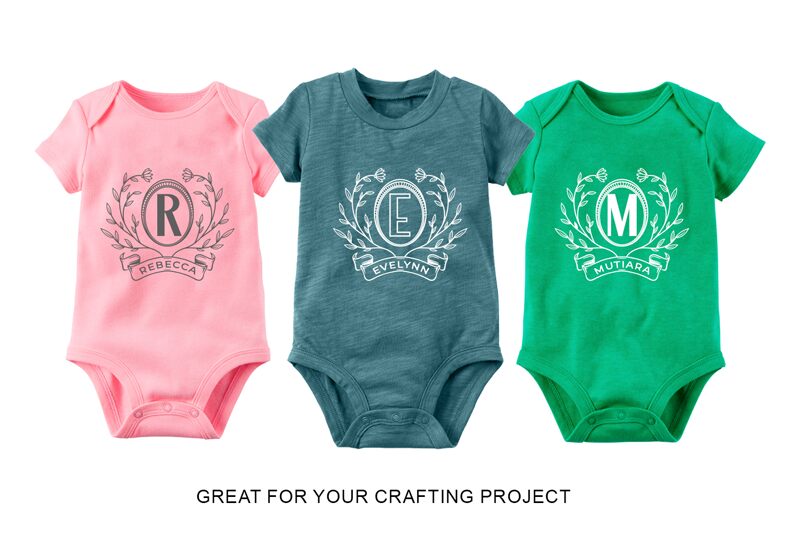
Auro Monogram is a beautiful and elegant display font designed by Panggah Laksono at Abo Daniel Studio. This decorative monogram font has a semi-light weight that makes it suitable for creating unique logos, stationeries, business cards, wedding invitations and other creative projects. It can also be used to add a unique touch to websites and blogs.
Auro Monogram